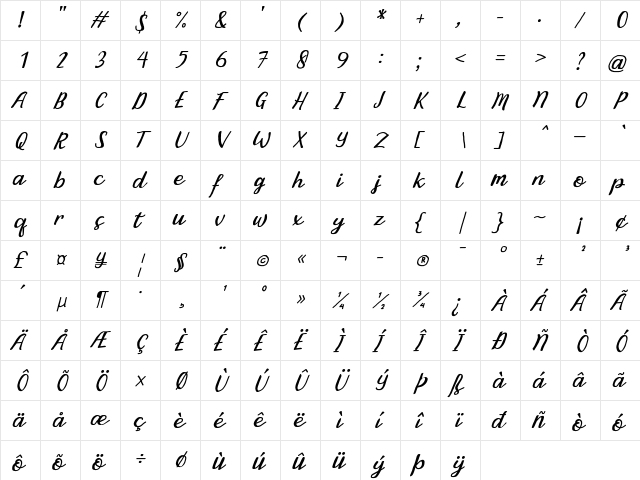
Bintar Italic
Italic · 7NTypes Andrian Dehasta, Situjuh Nazara ·
DesignerAndrian Dehasta, Situjuh Nazara
Design Context for Bintar Typeface
Bintar is a composed and adaptable typeface that performs quietly and consistently across a wide range of design contexts. The dynamic lean of this cut emphasises speed and emphasis in any layout.
Pro Tip: Try Bintar for annotation and caption copy alongside an upright companion — the contrast in angle creates a dynamic but ordered typographic system.